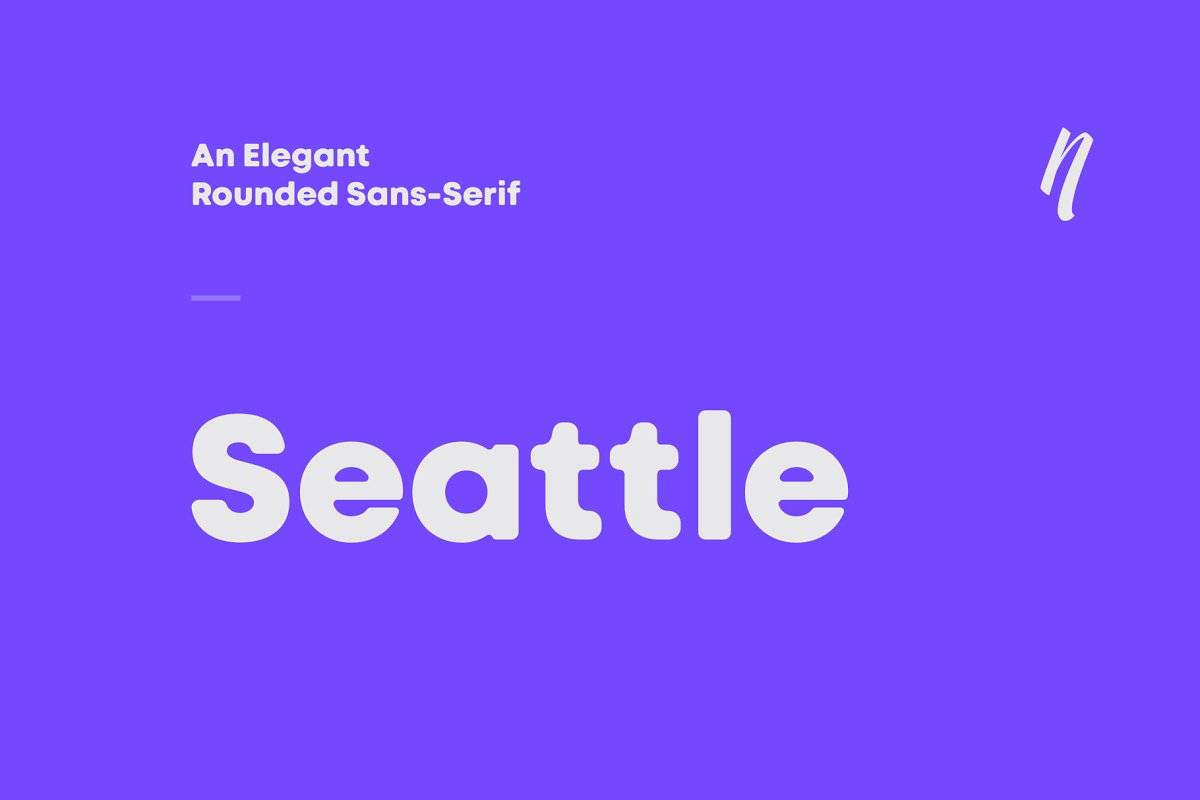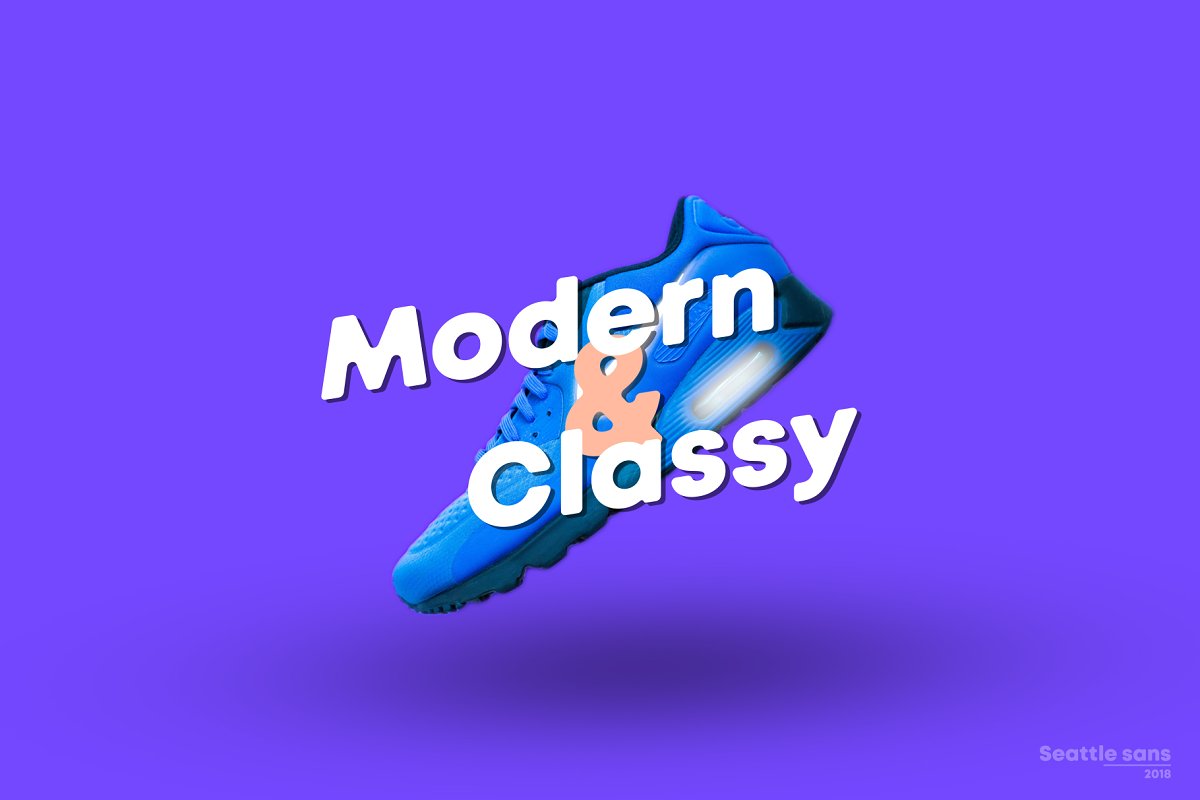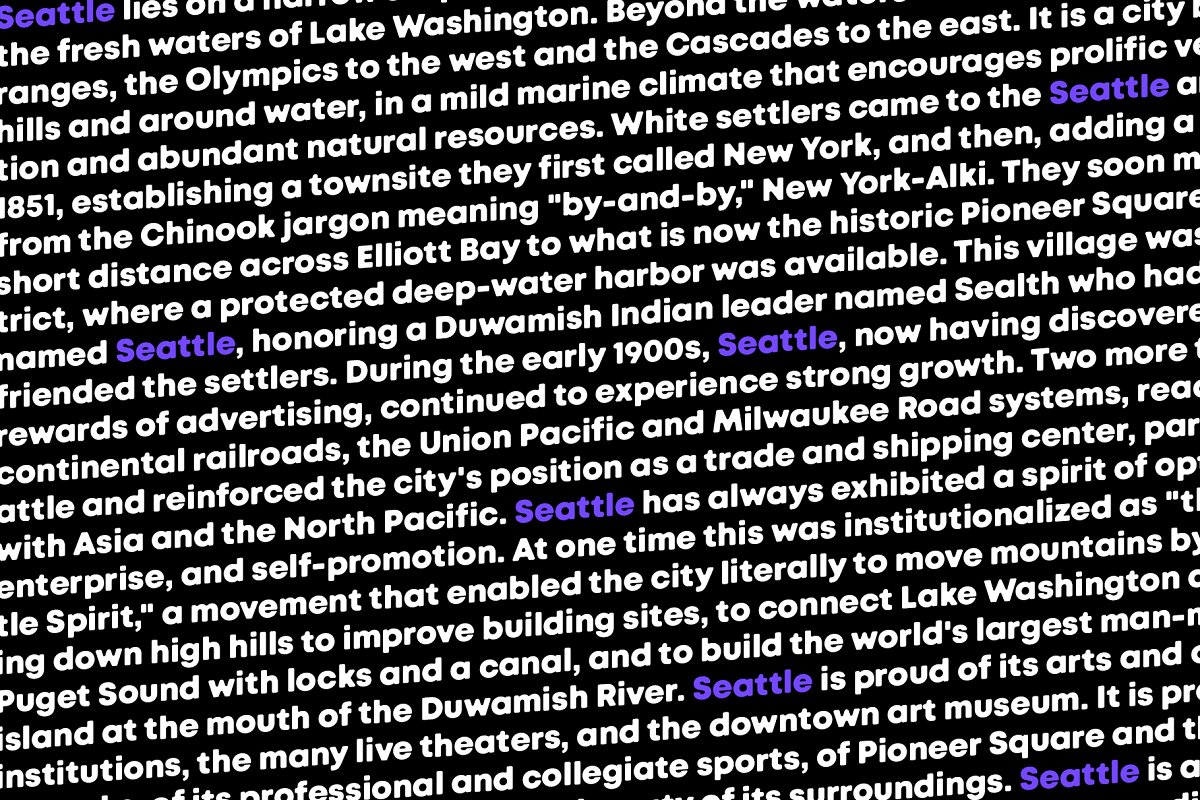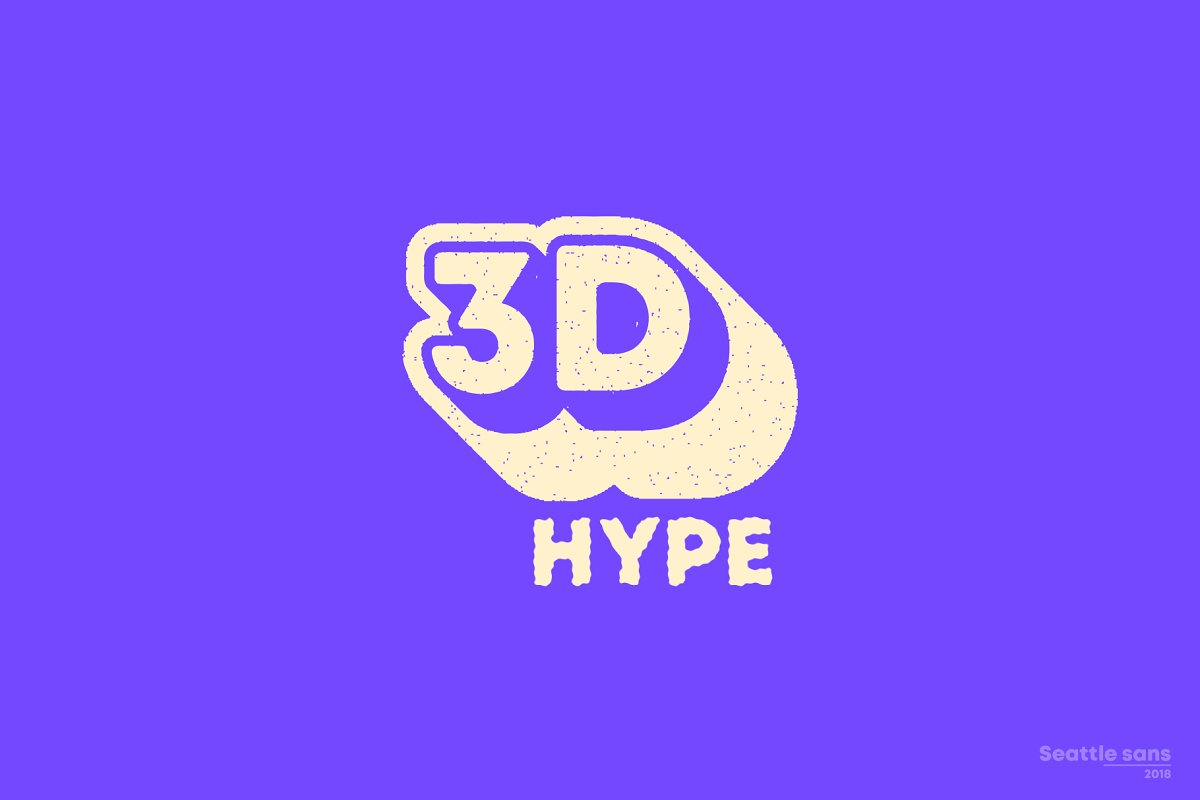
About the Seattle sans Elegant sans serif Font
Seattle sans serif is an elegant, rounded sans-serif font, Modern font with a touch of classy elements, use it for headlines, paragraphs, cover photos, web design, you name it, Seattle sans-serif is a multilingual font supporting many different languages, Please test your language in the preview box below, Features:OpentypeMultilingualUppercase and LowercaseCharacters and accent marksYou will get:OTF file